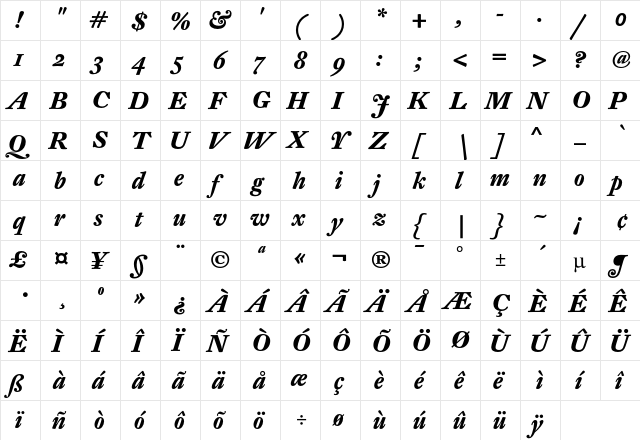
DTLFleischmannST BoldItalic Font Preview
Design Context for DTLFleischmannST Typeface
DTLFleischmannST takes a measured approach to typography — its balanced proportions and neutral character make it a reliable workhorse for both digital and print work. The dynamic lean of this cut emphasises speed and emphasis in any layout. Its bold stroke weight gives it real presence on the page.
Pro Tip: Try DTLFleischmannST for annotation and caption copy alongside an upright companion — the contrast in angle creates a dynamic but ordered typographic system.